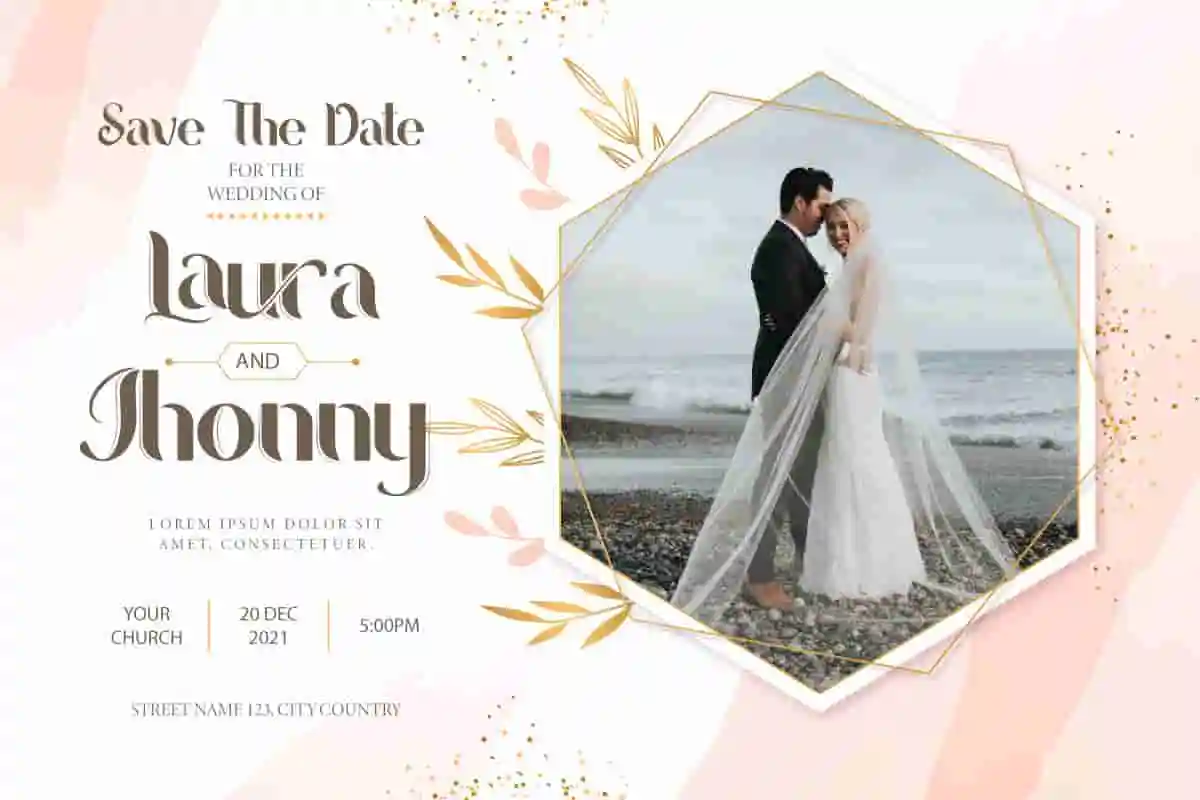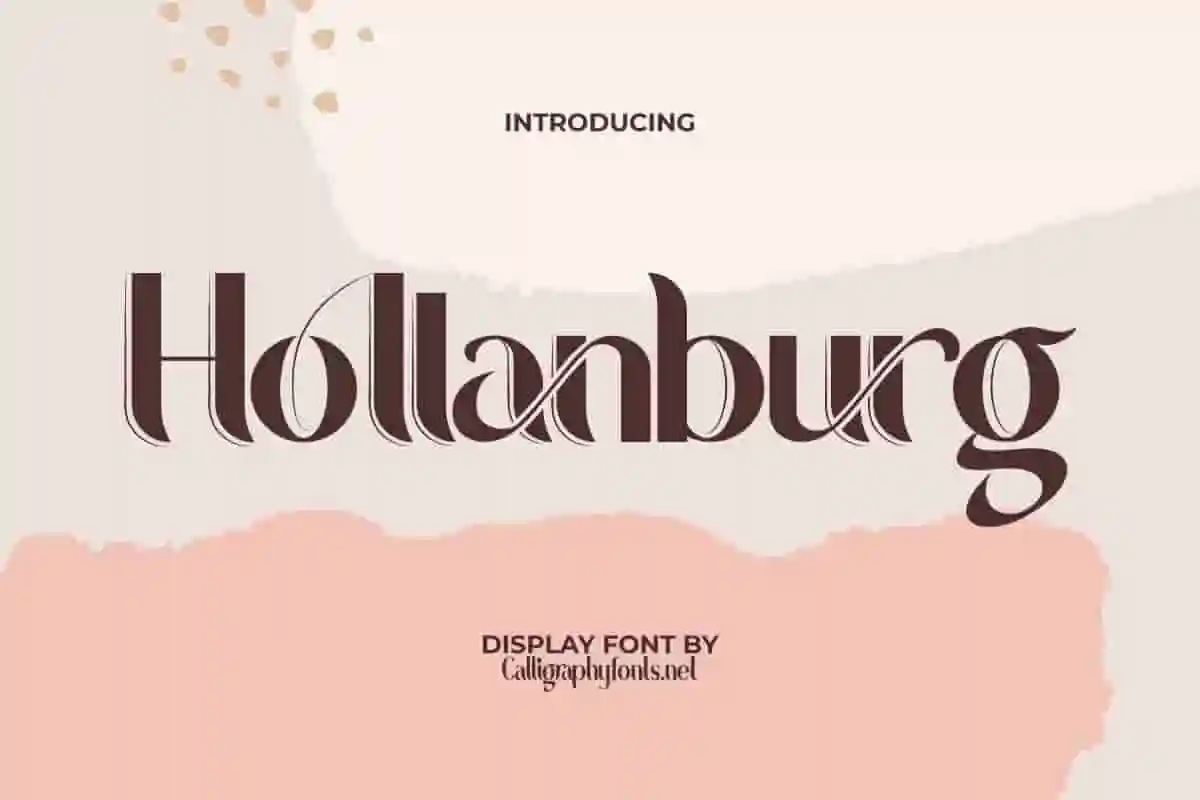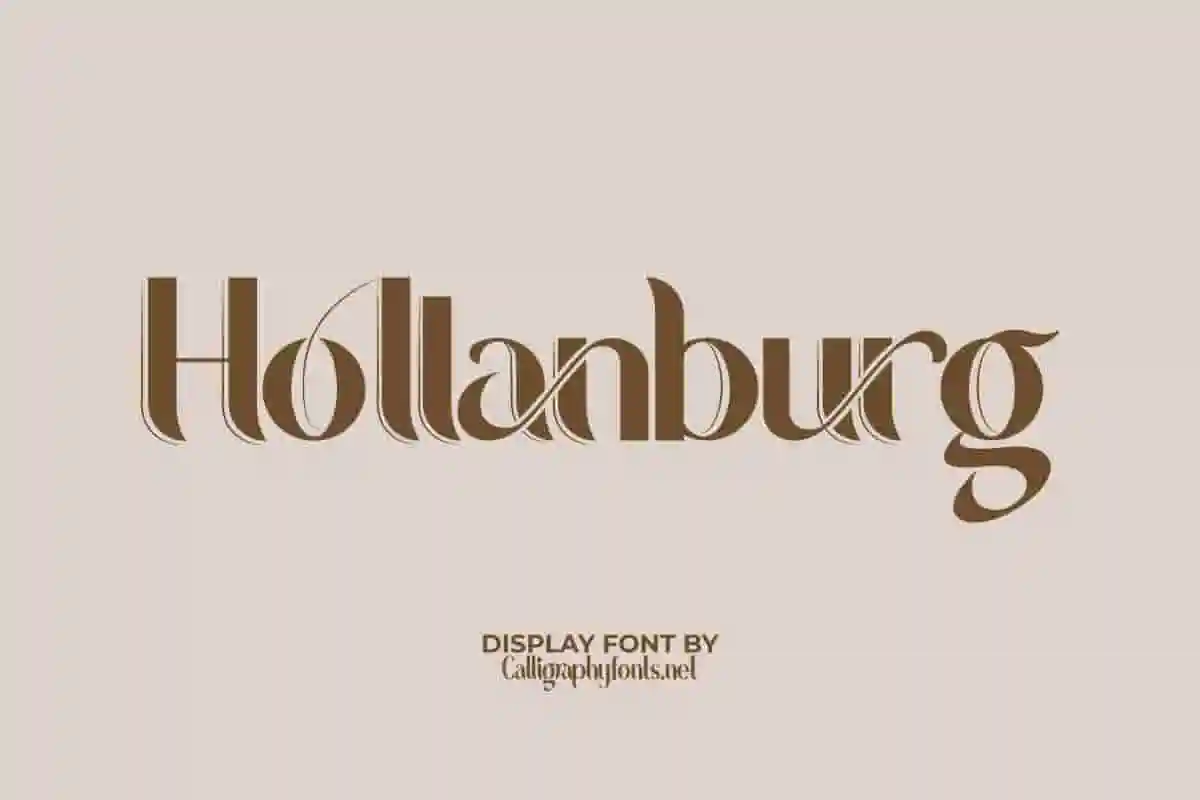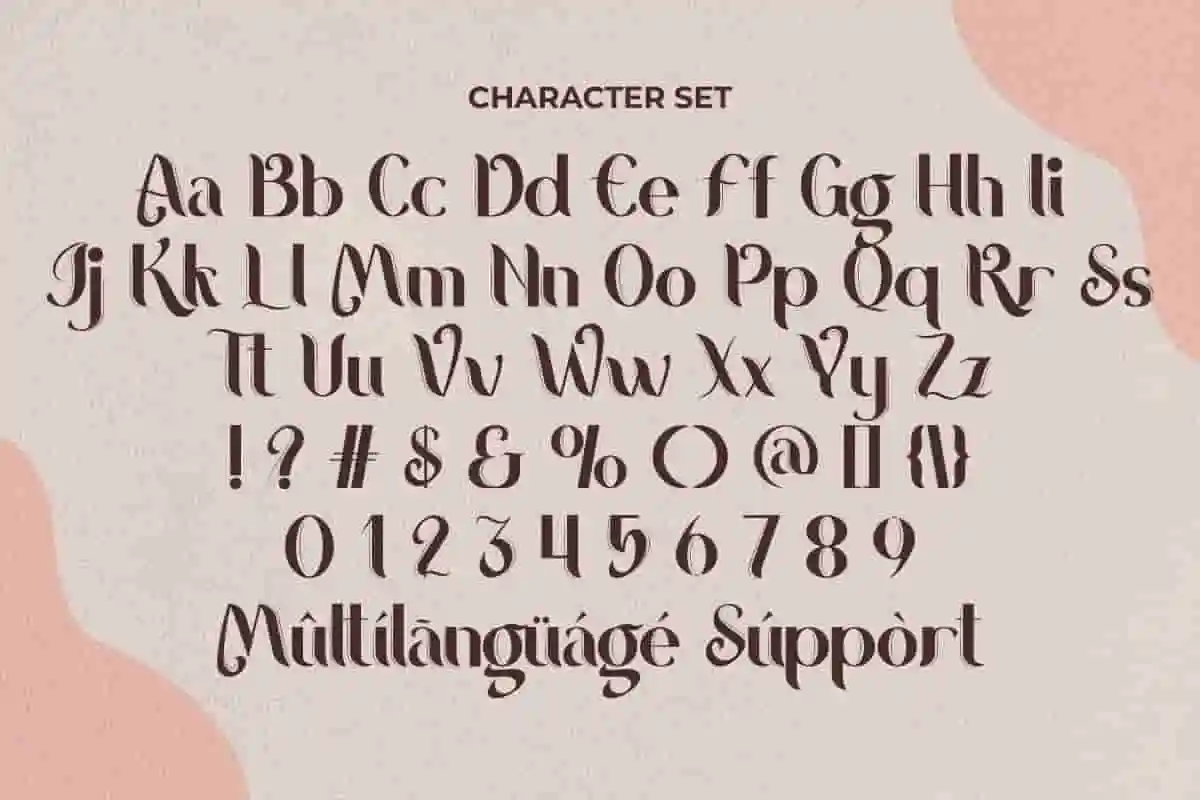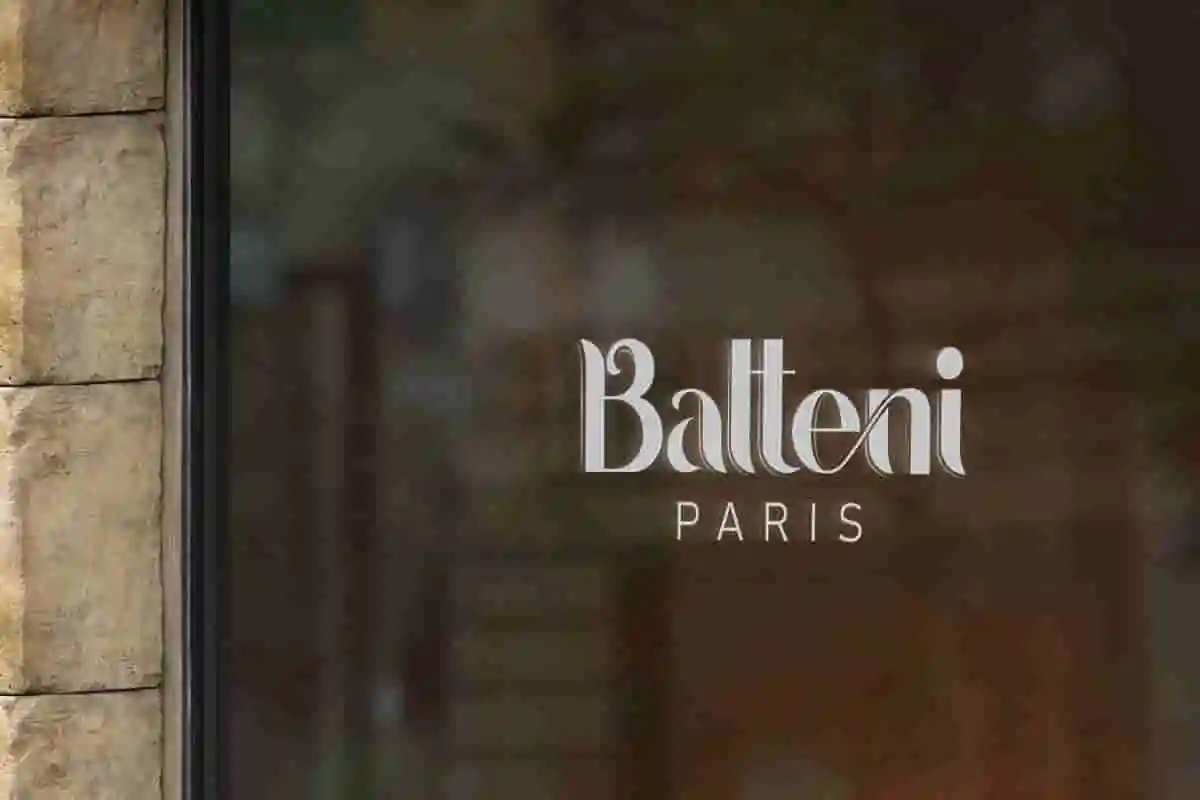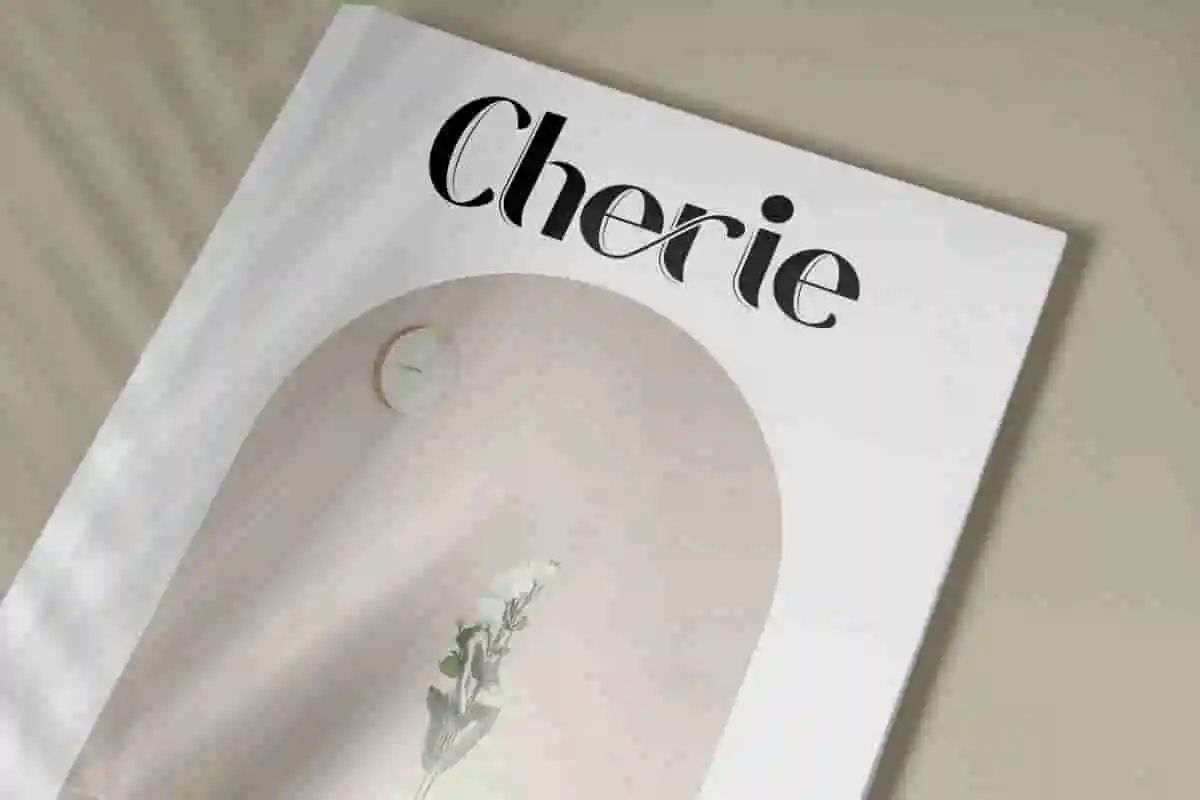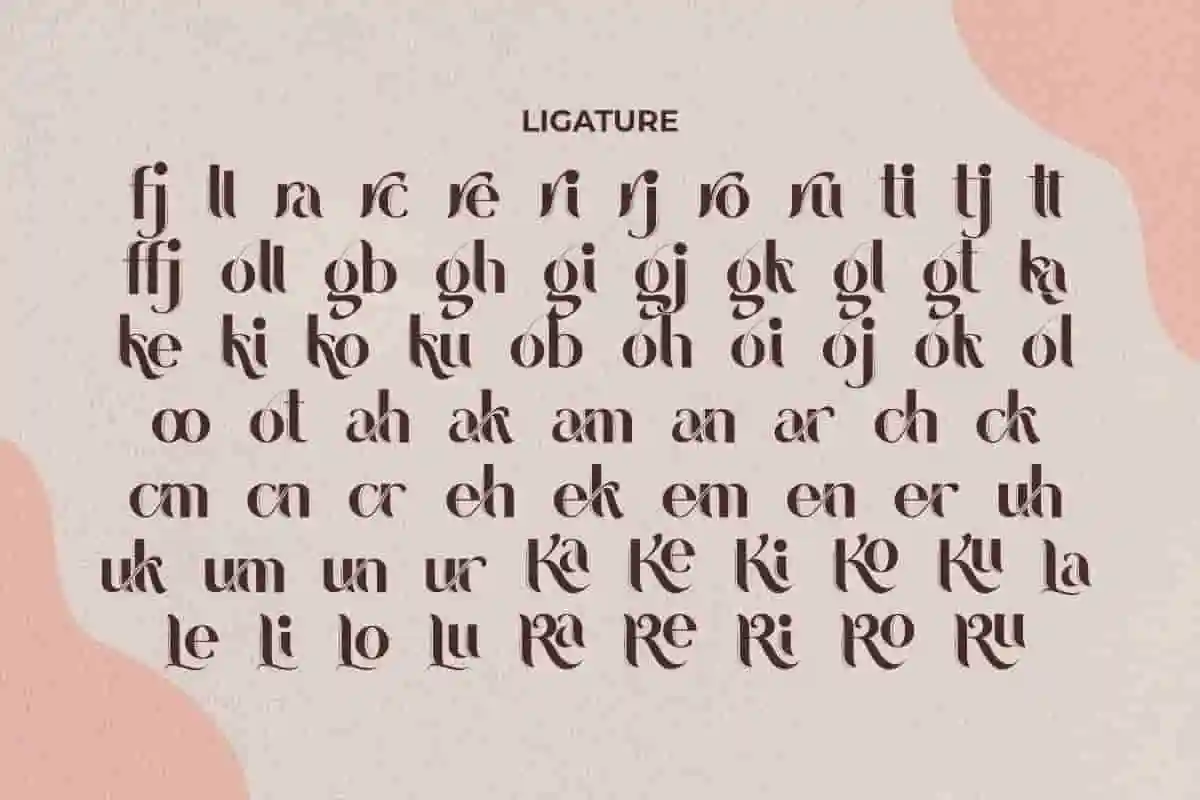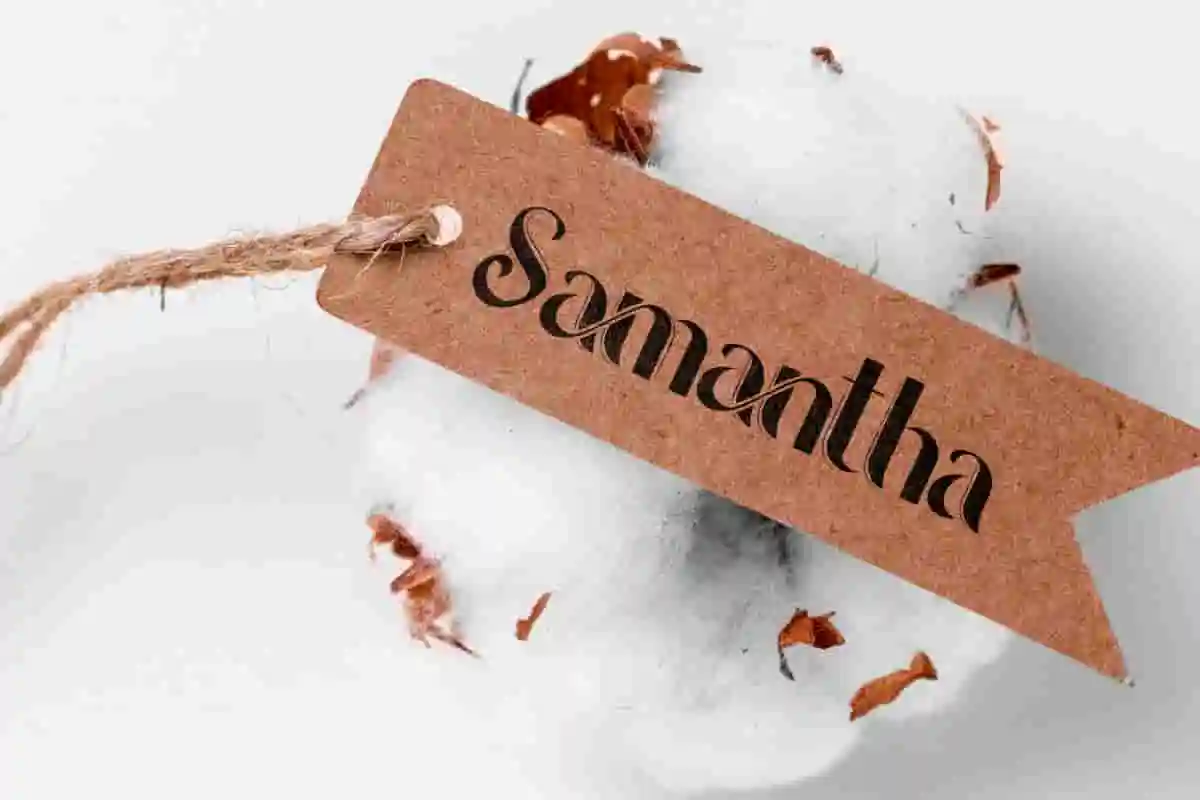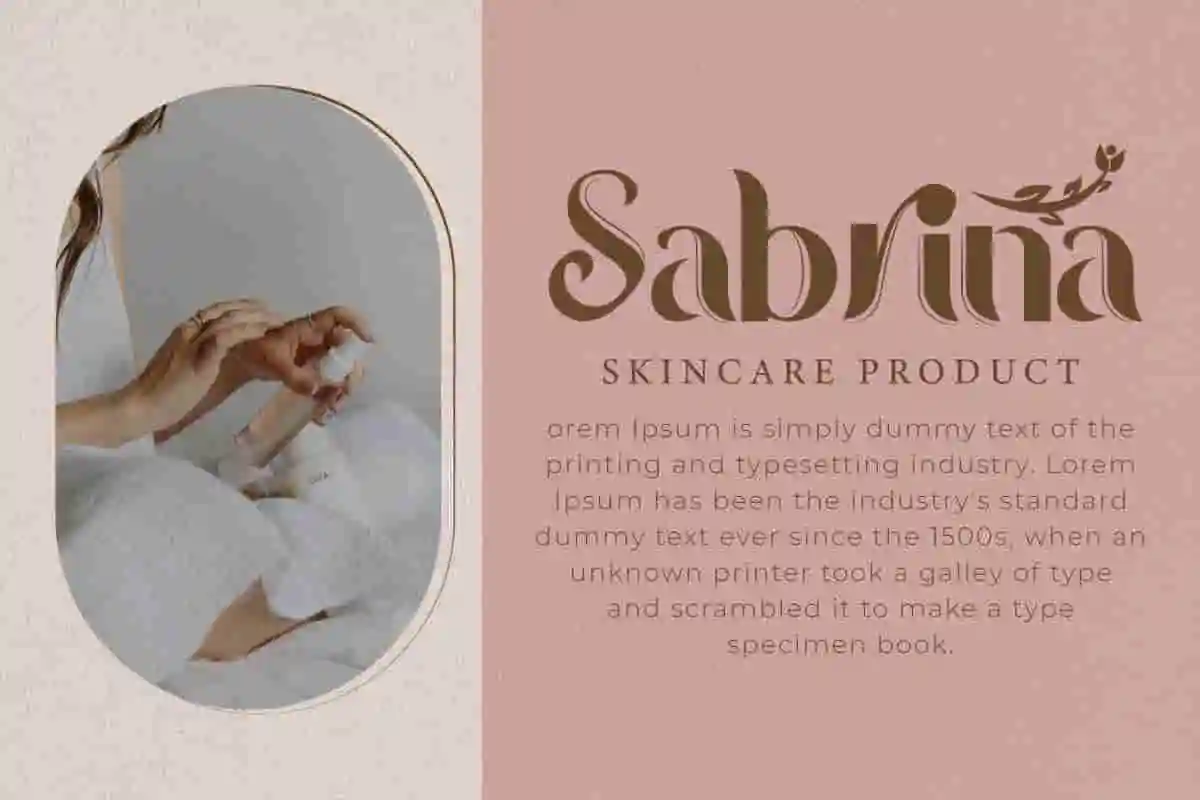
Hollanburg Display Font
Hollanburg Font is a stylish display font with thin fine line effect on each letter. The style of this font are feminine, simple, luxury and modern. Great for logo brandings, lettering, products packaging, signage, title etc. Hollanburg Font is a sans serif font made a different look by adding a line effect, making your designs stand out. The font will be awesome for many industries including : beauty care, fashion, furniture, wedding, writers etc
Make a lasting impression with Hollanburg Display Font, a striking typeface that blends bold confidence with refined elegance. Designed to command attention, this font is perfect for projects that need a strong, sophisticated presence without sacrificing readability.
With its balanced letterforms, smooth curves, and sharp details, Hollanburg Display Font delivers a professional yet stylish look. It’s ideal for high-end branding, luxury packaging, editorial layouts, and statement-making headlines. Whether used in print or digital media, this font ensures your message will always stand out.
Hollanburg Display Font isn’t just another typeface—it’s a design statement. Its unique balance of classic style and modern structure makes it the perfect choice for designers who want to project elegance and confidence in their work.